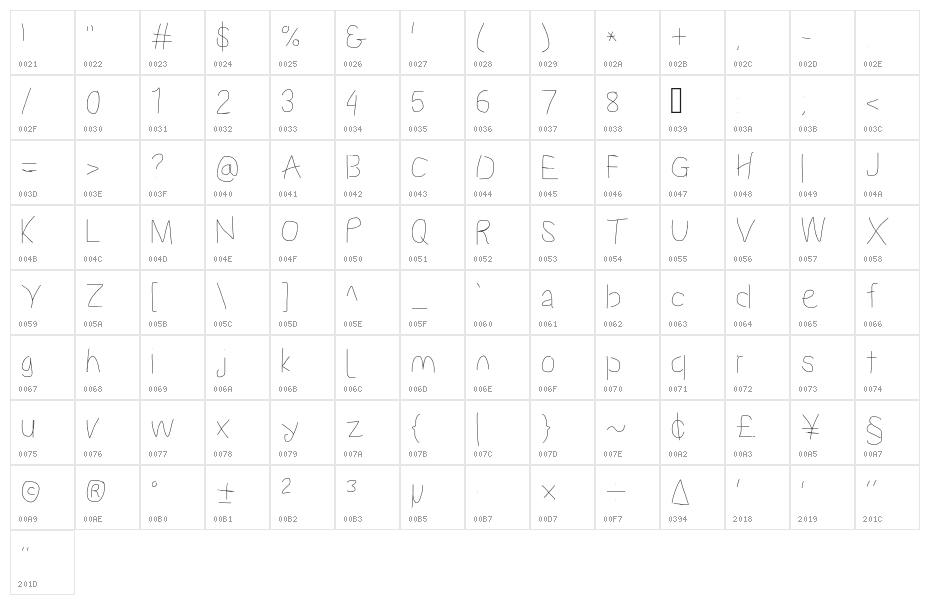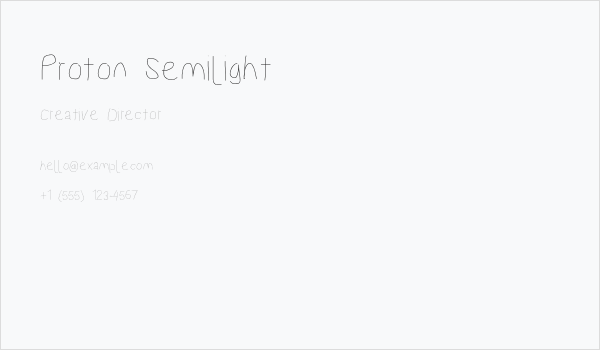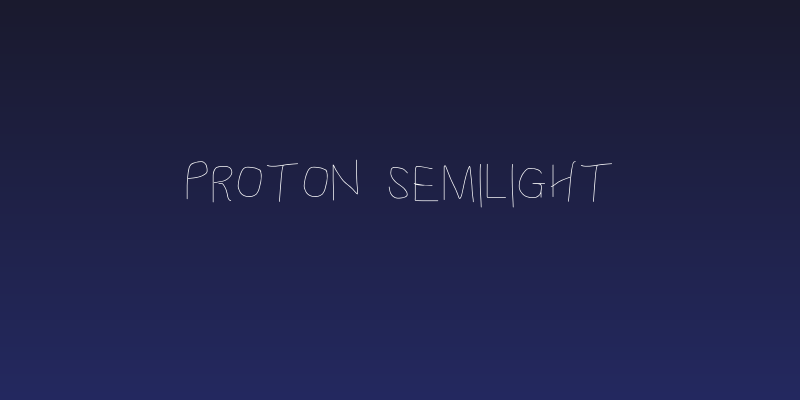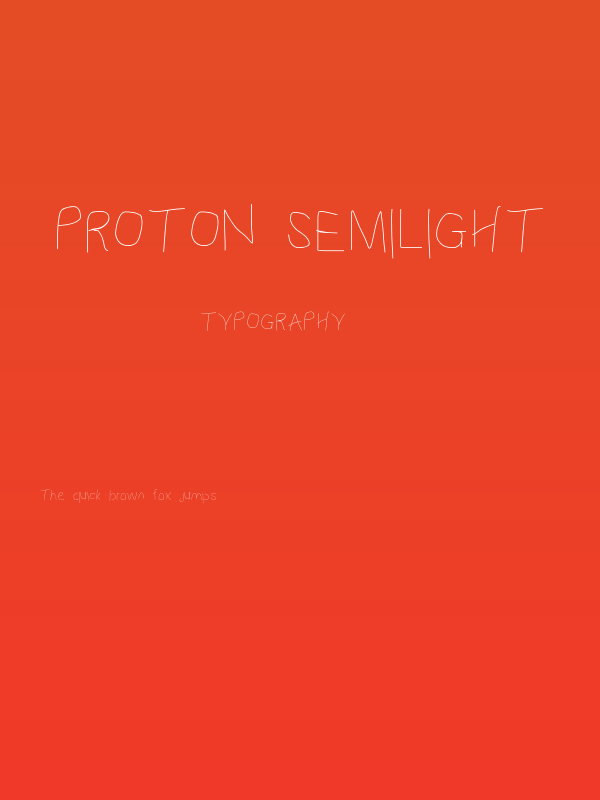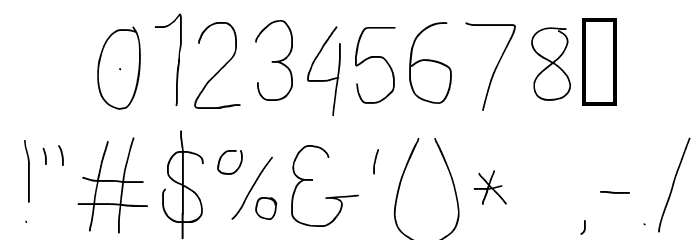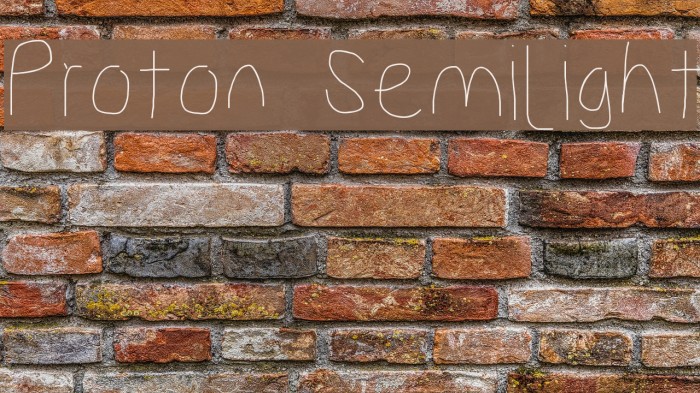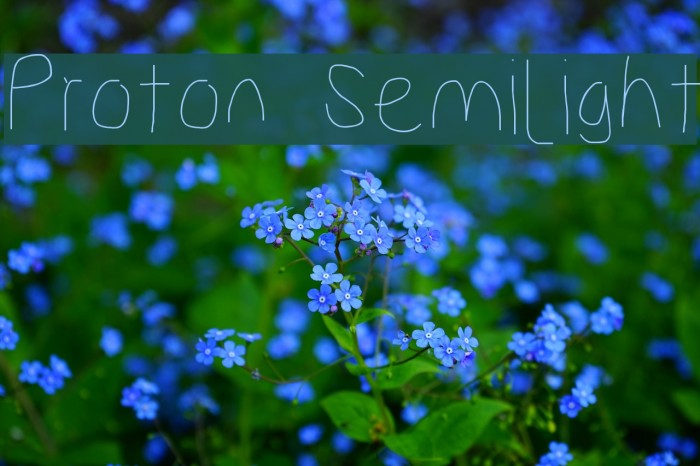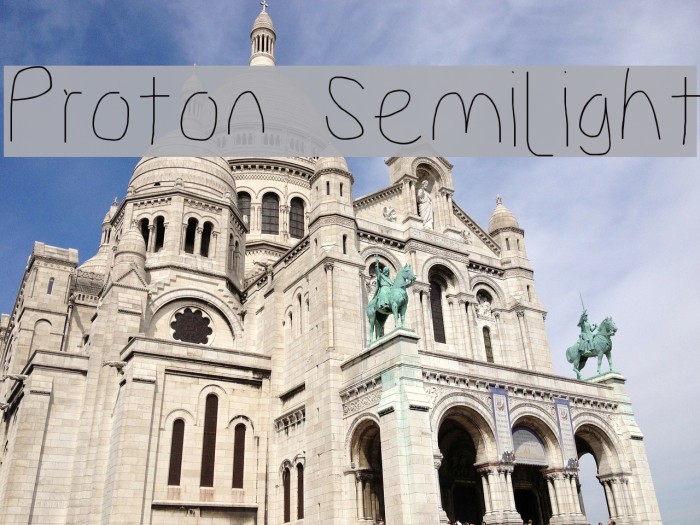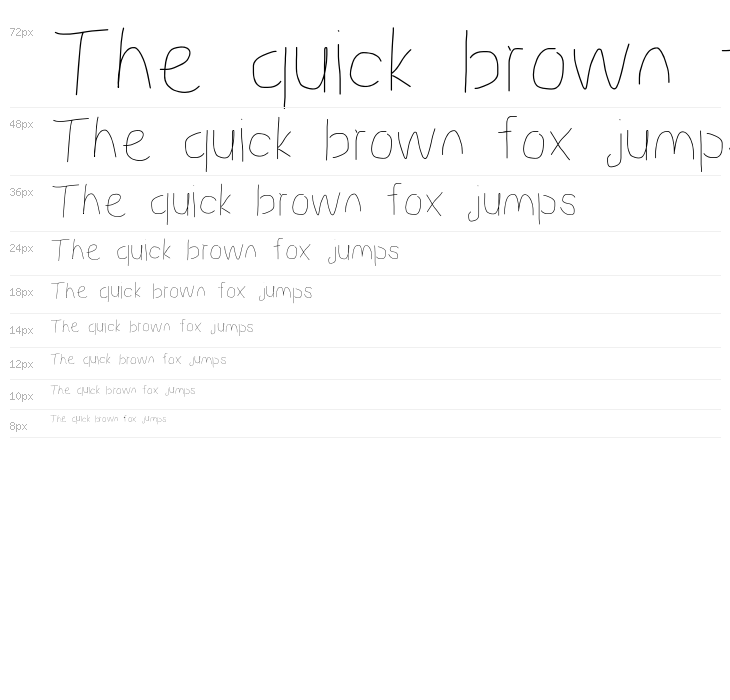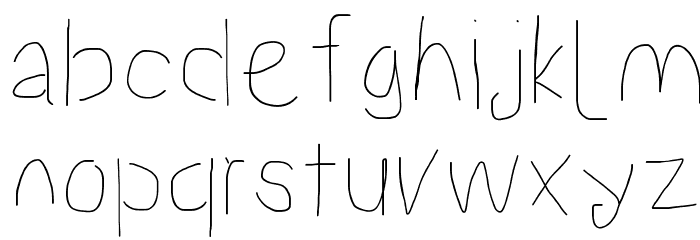
Proton Semilight Font
Proton Semilight Description
This font features a delicate and airy design, characterized by thin, slightly irregular strokes that give it a hand-drawn appearance. The uppercase letters are tall and narrow, with a playful, whimsical quality. Lowercase letters maintain a consistent style, with some characters like 'g' and 'y' having distinctive loops. The numerals are simple and clear, matching the overall lightness of the font. Special characters are crafted with the same thin lines, ensuring uniformity across the set. This font's unique style makes it suitable for creative and informal projects.